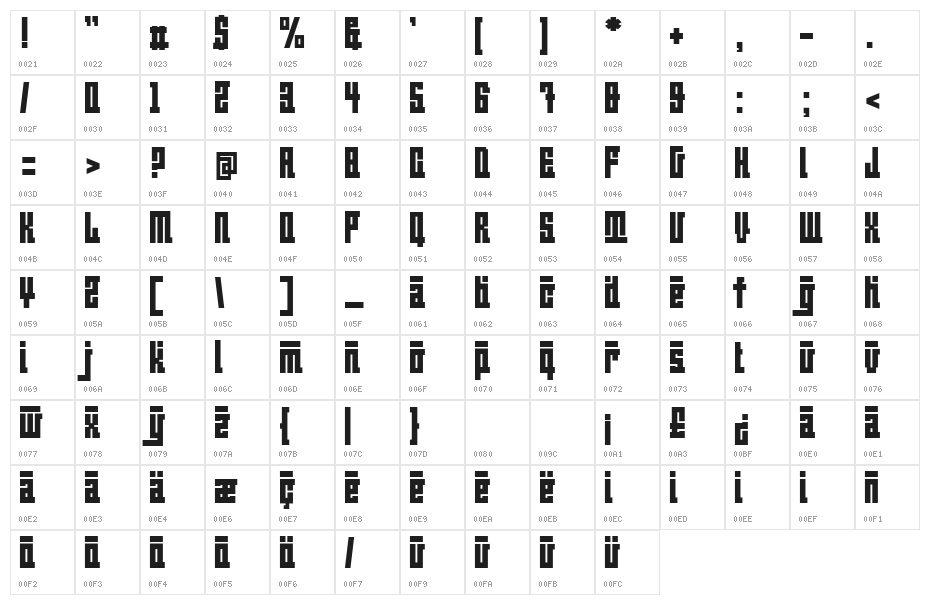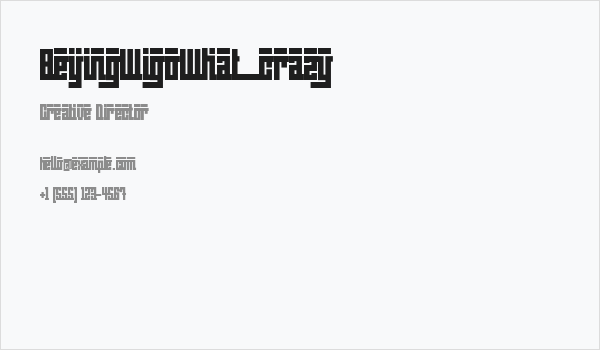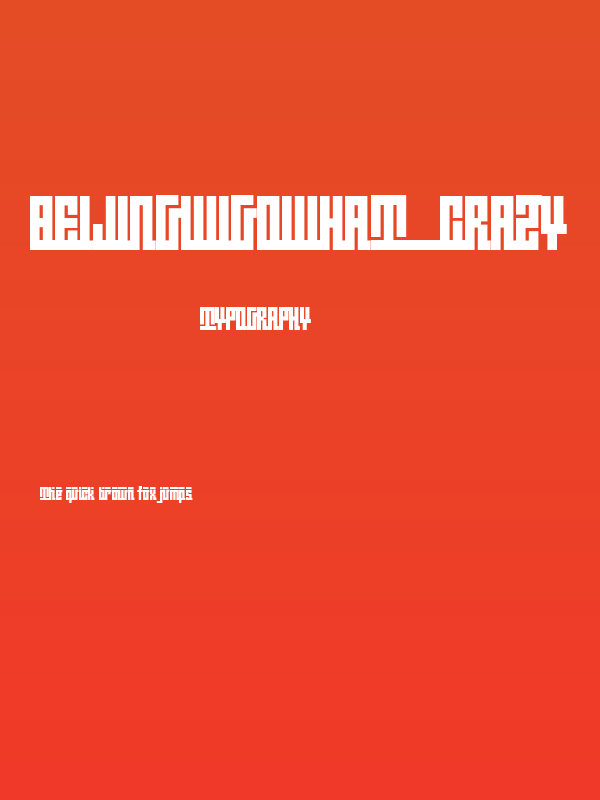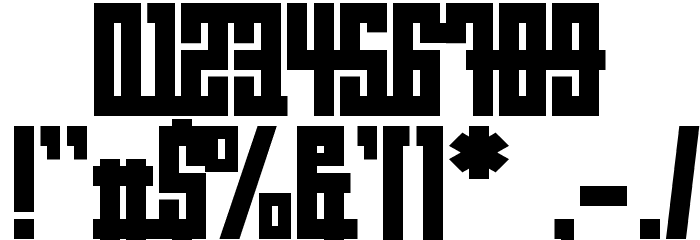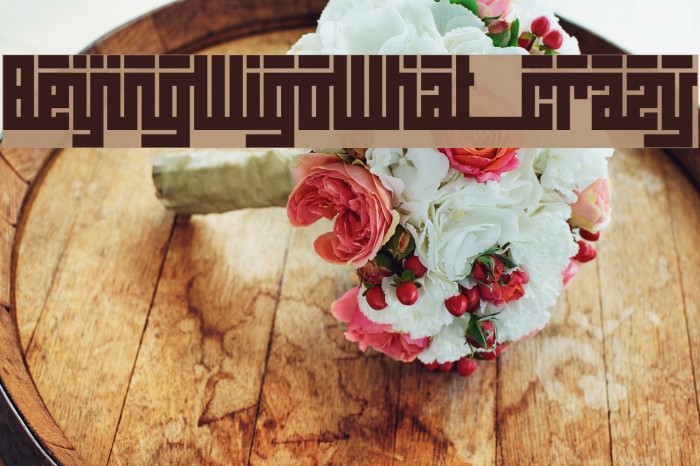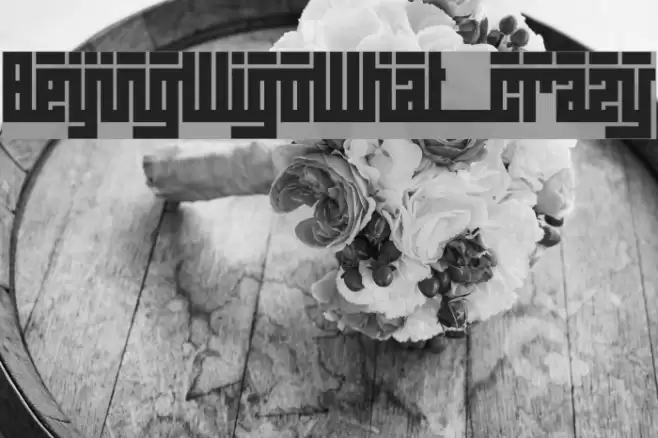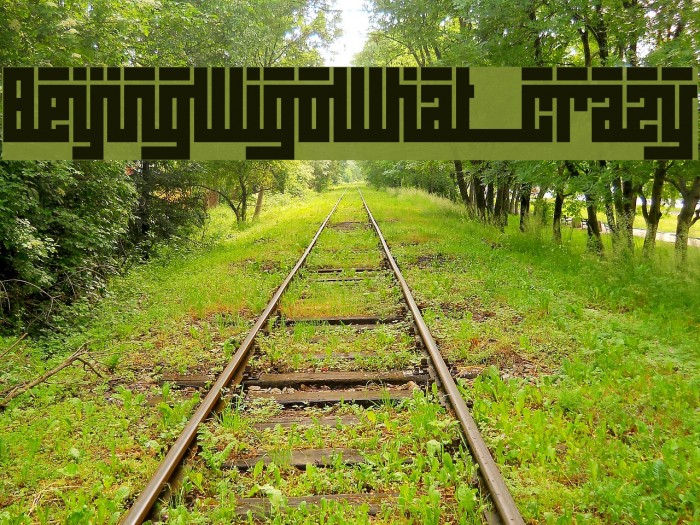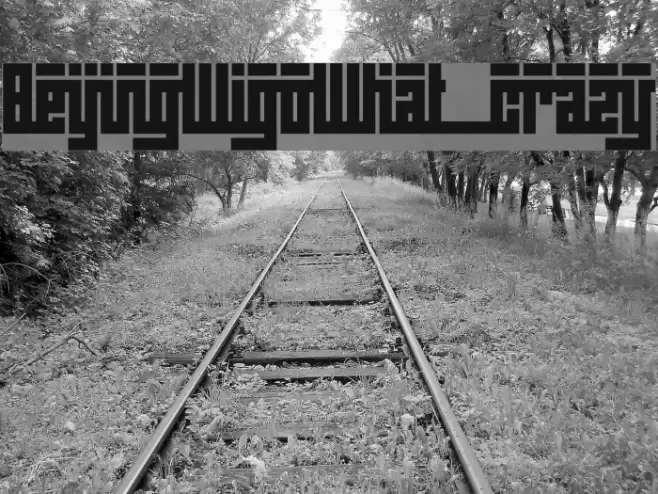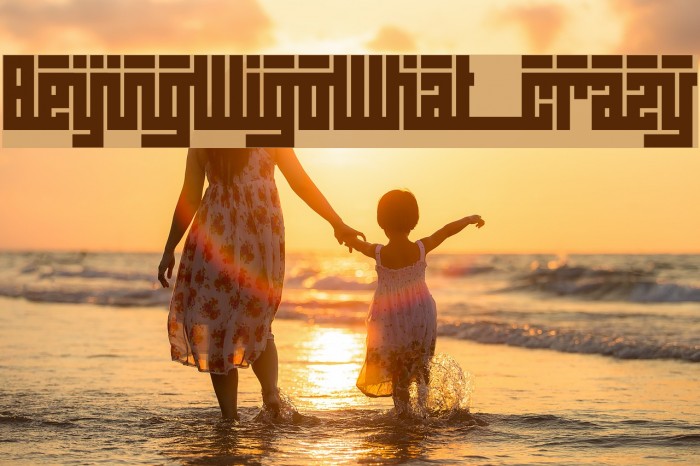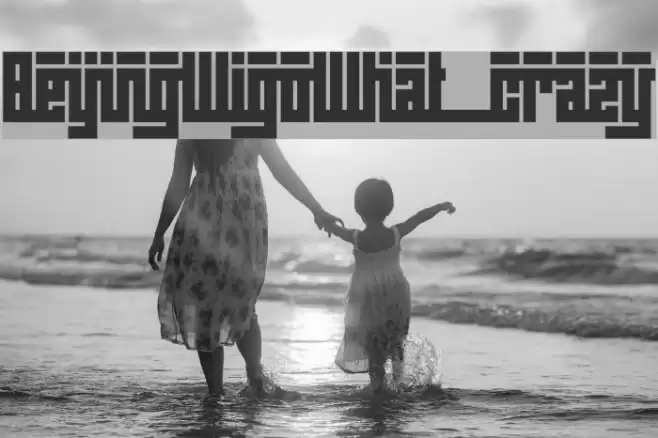
BeijingWigoWhat_crazy Font
✎ Futuristic
BeijingWigoWhat_crazy Description
This font features a bold, geometric design with a strong emphasis on rectangular shapes and straight lines. The characters are tightly spaced, creating a compact and cohesive look. The uppercase and lowercase letters maintain a consistent height, contributing to a uniform appearance. The numbers and special characters follow the same design principles, ensuring a seamless integration with the alphabet. The font's blocky style gives it a modern and edgy feel, making it suitable for attention-grabbing designs.
| Width | Condensed |
| Proposed Projects | Ideal for posters, logos, and headlines where a strong visual impact is desired. |